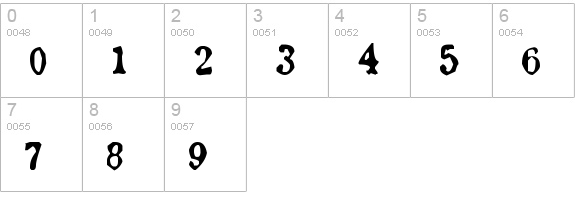
The Old Newspaper Font is a classic and timeless typeface that embodies the charm and nostalgia of vintage newspapers. With its distinctive old-fashioned letterforms and rustic feel, this font is perfect for giving your designs a touch of historic elegance. Whether you're working on a project that requires a touch of vintage flair or simply want to add a unique element to your designs, the Old Newspaper Font is the perfect choice. Best of all, this font is completely free to download at FontsMarket.com. Simply visit the website to access this beautifully crafted typeface and bring a touch of old-world charm to your projects. Add a touch of history to your designs with the Old Newspaper Font today!